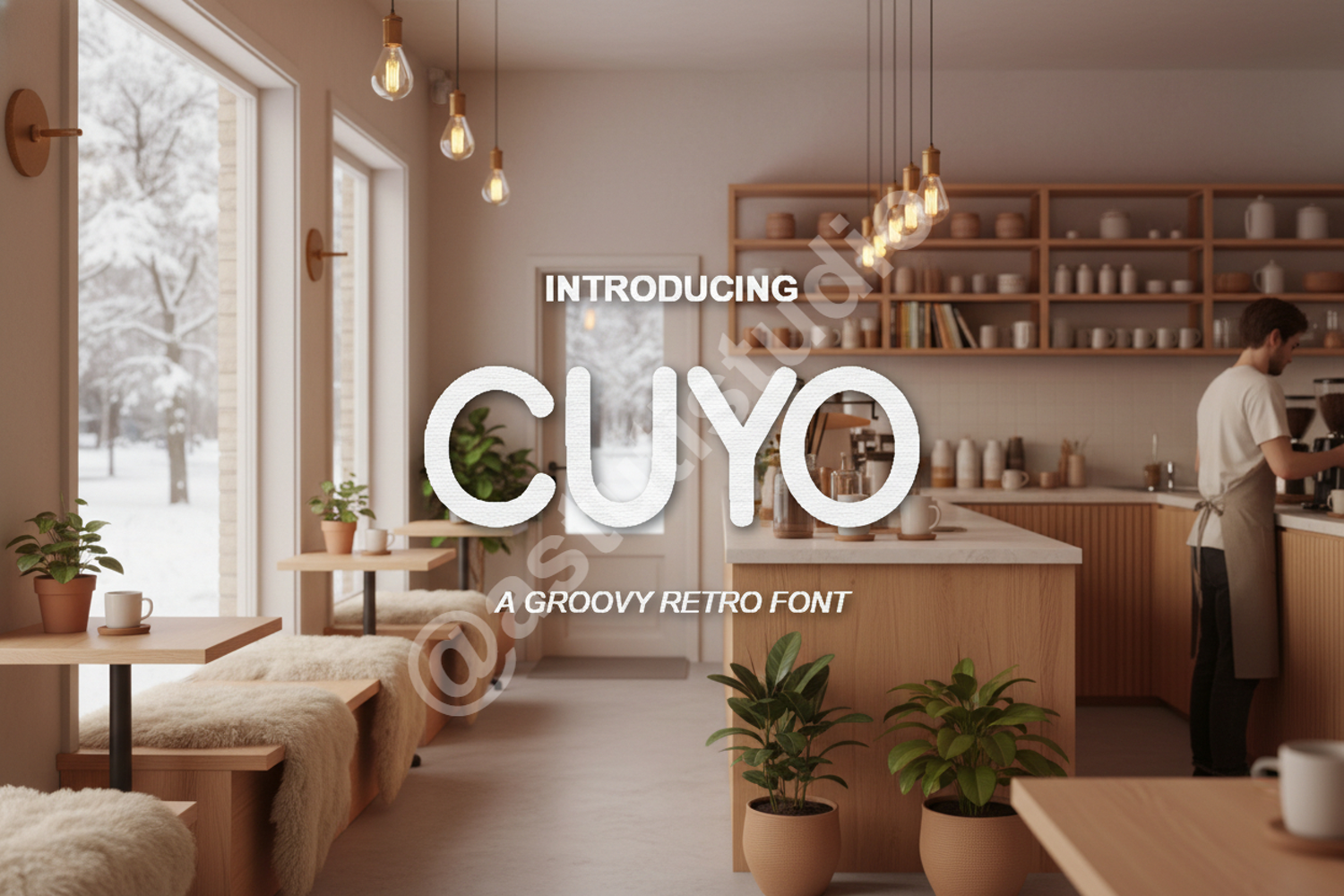
Cuyo - Modern Minimalist Sans Serif Typeface
Cuyo
Elevate your design projects with Cuyo, a premium sans-serif font that embodies modern minimalism and professional sophistication. Crafted with precision, Cuyo features clean geometric lines and perfectly balanced kerning, making it an essential tool for designers seeking a versatile and high-quality typeface. Whether you are working on a high-end corporate identity or a sleek digital interface, Cuyo provides the clarity and style needed to make a lasting impression.
- Branding and Visual Identity: Create memorable logos and brand marks with a clean, authoritative feel.
- Editorial Design: Perfect for headlines, subheaders, and body text in magazines or digital lookbooks.
- Web Design: Ensure readability and a modern aesthetic across all digital platforms and mobile apps.
- Packaging: Add a touch of luxury and clarity to product labels, tags, and boxes.
- Stationery: Ideal for professional business cards, wedding invitations, and corporate letterheads.